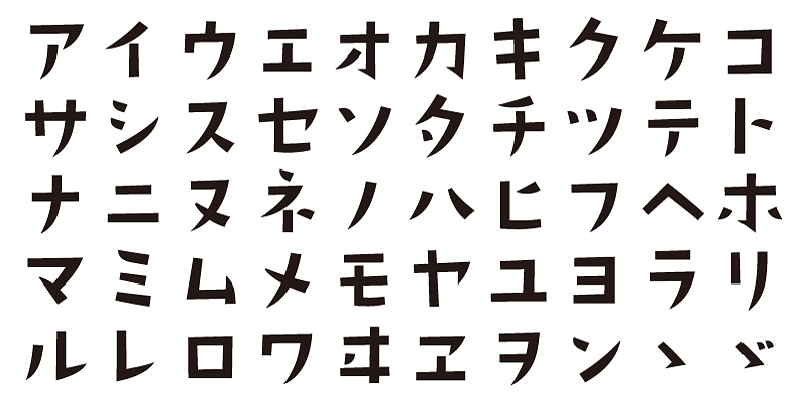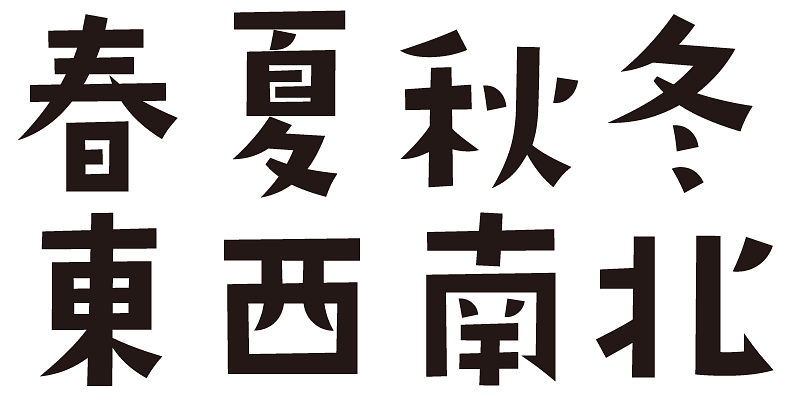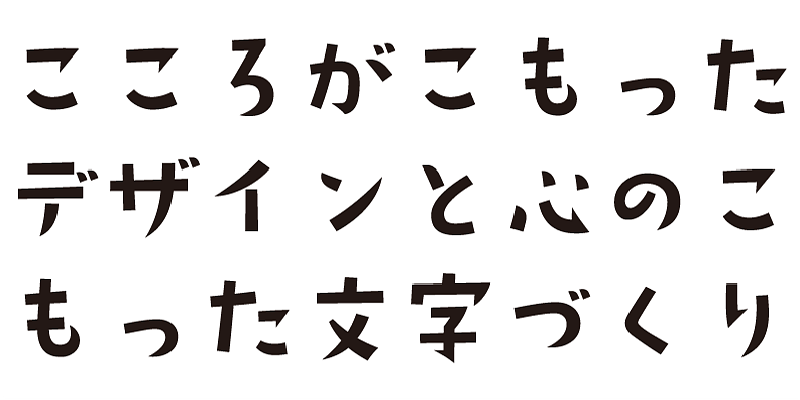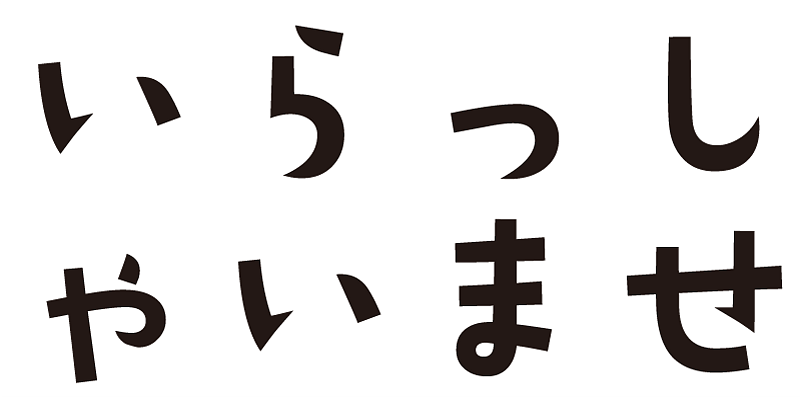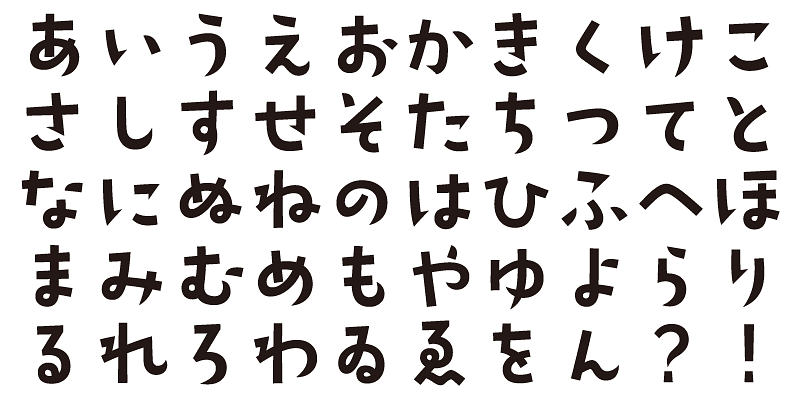
Hokkori (warm and cozy), yukkuri (slow and relaxed), attaka (gentle warmth). This typeface carries a lightly playful and lively design.
This font includes top 1,000 kanji characters chosen from character frequency tables made by newspaper companies, publishing houses and linguistic research institutes, plus about 400 alphanumeric, kana characters and punctuation marks.
We design typefaces with the hope that they will add underlying meaning to words expressed. We wish the user to feel good and experience comfort and joy when using these typefaces.